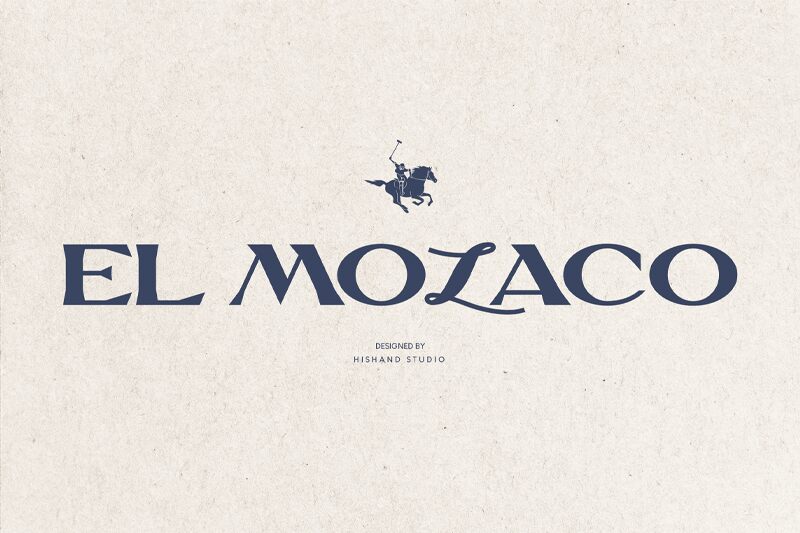
El Molaco font by Hishand Studio is a striking serif masterpiece, bold and expanded to command attention. Its robust design perfectly balances elegance and strength, making it ideal for impactful headlines and branding projects. The expanded width enhances its majestic appearance, ensuring visibility in both digital and print media.
Visually captivating, El Molaco combines traditional serif elements with modern flair, providing versatility in various creative contexts. This free font is perfect for designers seeking to elevate their projects with sophistication and boldness.
EL MOLACO